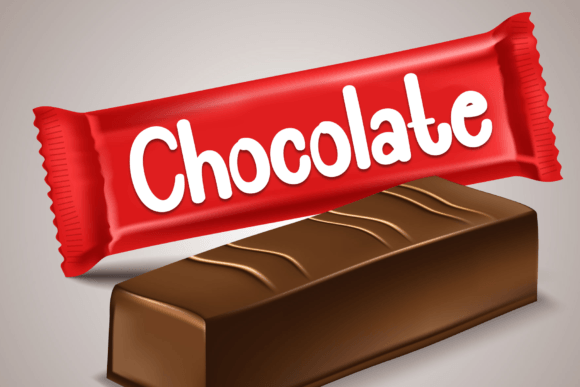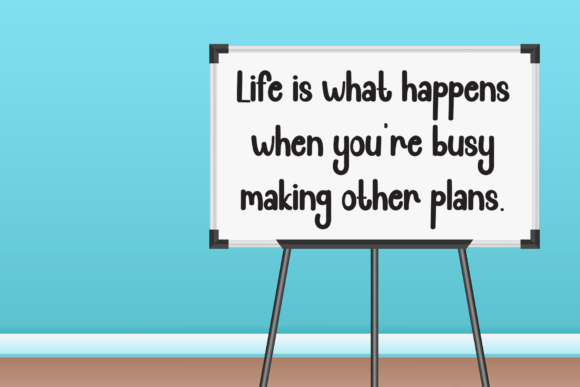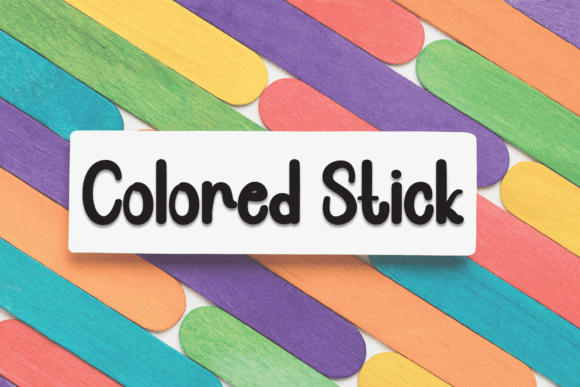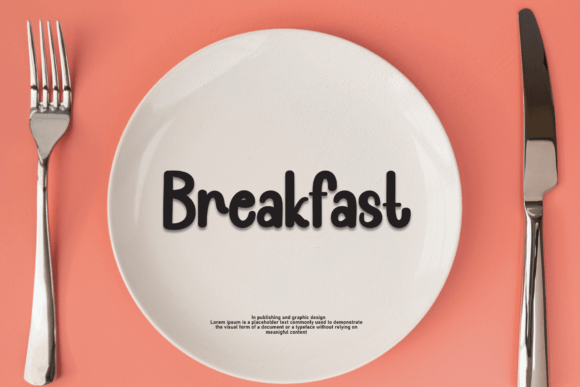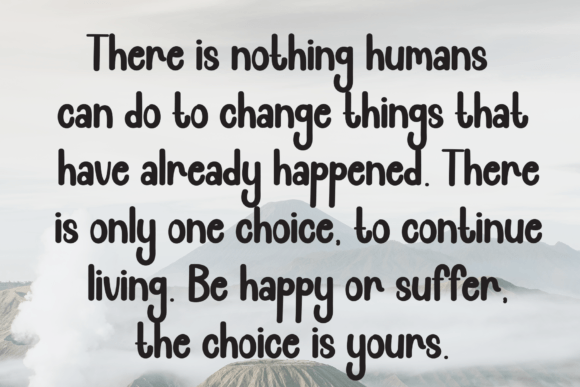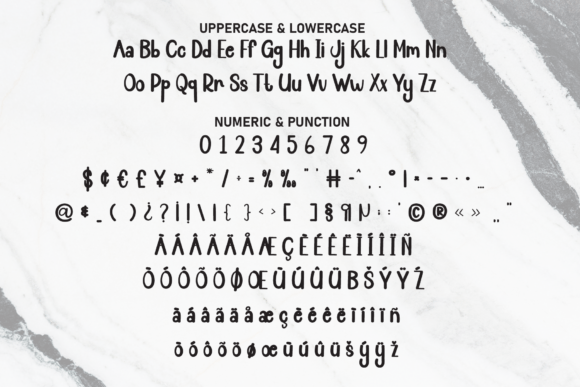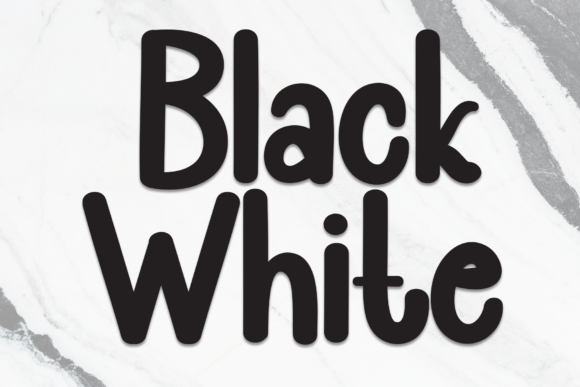
Introducing Black White Font: The Ultimate Guide to Sweet & Friendly Typography
Are you tired of using the same old fonts for your designs? Look no further! Welcome to the world of ‘Sweet & Friendly’, a charming handwritten display font that is sure to add a touch of warmth and character to your projects. In this article, we’ll dive into the world of Black White Font, exploring its unique features, uses, and benefits for designers and crafters.
The Story Behind Sweet & Friendly
‘Sweet & Friendly’ is more than just a font – it’s a personality. This delightful handwritten display font is packed full of warmth and character, making it perfect for capturing moments of joy and whimsy. With its cute, fun genealogy, it effortlessly elevates the charm of wedding invitations, cards, or any design craving a touch of innocence and fun.
Key Features of Sweet & Friendly
- Handwritten Display Font: ‘Sweet & Friendly’ is a beautifully crafted handwritten display font, perfect for adding a personal touch to your designs.
- Warm and Characterful: This font is designed to evoke feelings of warmth and character, making it perfect for projects that require a touch of personality.
- Cute and Fun Genealogy: The font’s genealogy is rooted in cuteness and fun, making it perfect for designs that require a playful touch.
- Perfect for Wedding Invitations and Cards: ‘Sweet & Friendly’ is ideal for wedding invitations, cards, and other designs that require a touch of elegance and whimsy.
Uses for Sweet & Friendly
So, what can you use ‘Sweet & Friendly’ for? The possibilities are endless! Here are a few ideas to get you started:
- Wedding Invitations: Add a touch of elegance and whimsy to your wedding invitations with ‘Sweet & Friendly’.
- Cards and Stationery: Use ‘Sweet & Friendly’ to create beautiful cards and stationery that are sure to delight.
- Design Projects: Add a playful touch to your design projects with ‘Sweet & Friendly’, perfect for projects that require a touch of personality.
- Crafting: ‘Sweet & Friendly’ is perfect for crafters, use it to create beautiful handmade cards, gift tags, and more.
Benefits of Using Sweet & Friendly
So, why choose ‘Sweet & Friendly’ for your designs? Here are just a few benefits of using this charming font:
- Unique and Eye-Catching: ‘Sweet & Friendly’ is a unique and eye-catching font that is sure to make your designs stand out.
- Easy to Read: Despite its playful nature, ‘Sweet & Friendly’ is easy to read, making it perfect for designs that require a clear and concise message.
- Versatile: ‘Sweet & Friendly’ is a versatile font that can be used for a wide range of designs, from wedding invitations to crafting projects.
- Fun and Playful: This font is perfect for designers and crafters who want to add a touch of fun and playfulness to their designs.
Tips for Using Sweet & Friendly
Here are a few tips for using ‘Sweet & Friendly’ in your designs:
- Use it Sparingly: While ‘Sweet & Friendly’ is a beautiful font, it’s best used sparingly. Use it for headings or titles, and pair it with a simpler font for body text.
- Experiment with Colors: ‘Sweet & Friendly’ looks beautiful in a range of colors, from soft pastels to bold brights. Experiment with different colors to find the perfect look for your design.
- Pair it with Other Fonts: ‘Sweet & Friendly’ pairs beautifully with other fonts, try pairing it with a simple sans-serif font for a striking contrast.
In conclusion, ‘Sweet & Friendly’ is a charming handwritten display font that is sure to add a touch of warmth and character to your designs. With its cute, fun genealogy and versatile nature, it’s perfect for a wide range of projects, from wedding invitations to crafting. Whether you’re a designer or crafter, ‘Sweet & Friendly’ is a must-have font in your arsenal. So why not give it a try and see the magic for yourself?